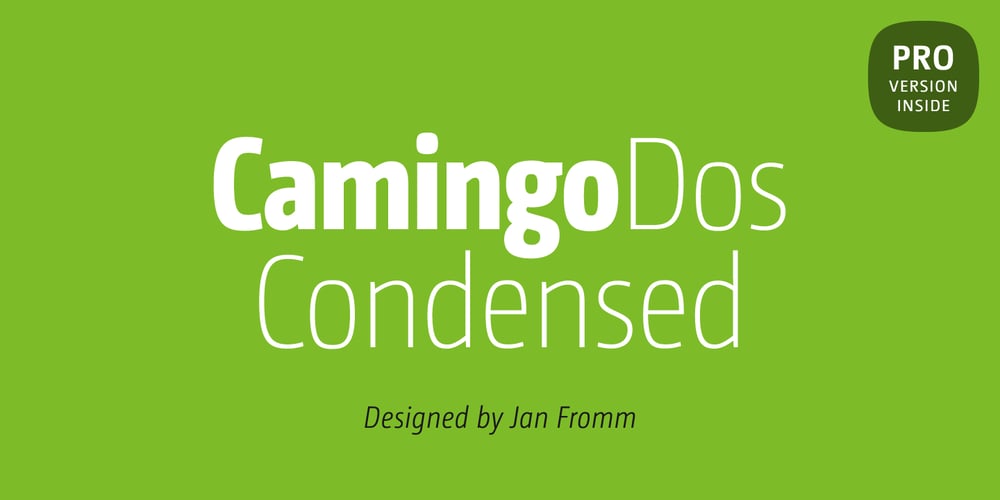
CamingoDos Condensed
CamingoDos Condensed font
CamingoDos Condensed Font Family was designed by Jan Fromm and published by Jan Fromm. CamingoDos Condensed contains 28 styles and family package options. CamingoDos Condensed was designed to achieve a more powerful impact for the use in headlines. The compact appearance and the tight letter spacing makes it an ideal solution for display settings on a limited space. CamingoDos Condensed comes with a Pro version that offers a rich set of expert typographic features like small caps, ligatures, stylistic alternates, different figure sets, arrows, fractions and ordinals.